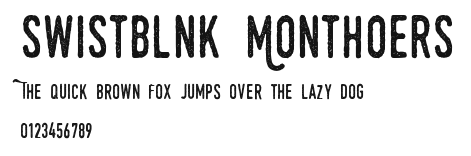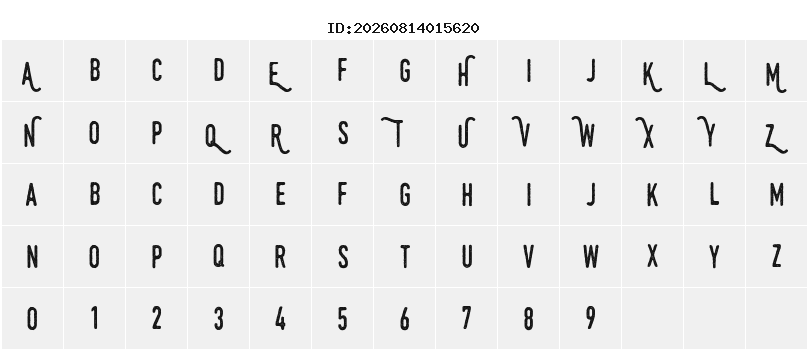
• Font Name: Swistblnk Monthoers
• Full Font Name: Swistblnk Monthoers
• PostScript Name: SwistblnkMonthoers
• Designer: Agga Swistblnk
• Manufacturer: swistblnk
Swistblnk Monthoers.ttf is a modern, elegant sans-serif font designed for ultimate readability and visual harmony. Perfect for branding, headlines, web design, and print materials.